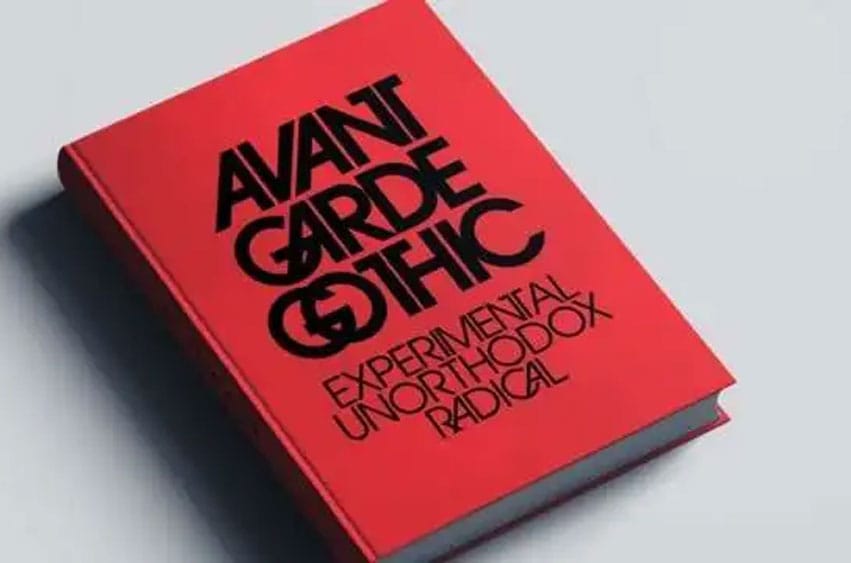
Avant Garde Gothic Font is an ITC font family inspired by the typeface used for Avant Garde magazine logos and headlines by Herb Lubalin of Lubalin Design LLC and Tom Carnase from Lubalin’s design firm, Tom Carnase of Lubalin Design LLC respectively. Together they collaborated in developing this concept into an entire typeface family.
These fonts were developed by Ed Benguiat in 1974, while their obliques were created through a collaboration between Andre Gurtler, Erich Gschwind, and Christian Mengelt in 1977.
The original designs were composed of two parts, with one component creating headlines and the other copying text. When digitization occurred, however, one style of text, including its ligatures and alternate styles, was selected as its only representation; additionally, this Font family has five weight options (four condensed and complementary weights for larger font sizes).